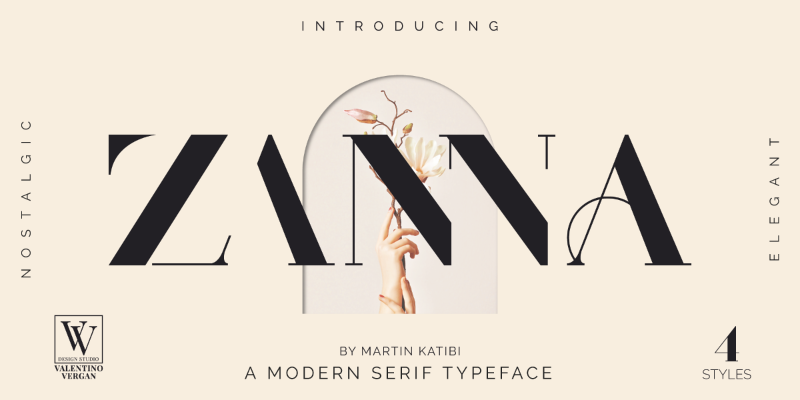
Zanna is a modern typeface with lots of style and elegance. The Zanna typeface was inspired by the high contrast Didot look, which has been synonymous with fashion for decades. The Zanna typeface also has a very thin hairline and short non-bracketed serifs, which gives it a nostalgic and modern look. The Zanna typeface comes in two styles Regular and Stencil, each style has an oblique version. The Zanna typeface has over 140 ligatures and alternate characters, this makes it perfect for creating modern and elegant feminine logos. With so many ligatures and alternates characters to choose from, you can definitely create stunning designs for your brand or clients. The Zanna typeface can be paired with a beautiful minimal sans serif or light script font, this combination will make your next project look elegant and classy. The Zanna typeface is very versatile and can cover a wide range of project such as: fashion branding, mastheads, magazines, feminine logos, facebook banners, wedding invitations, Instagram posts, websites, blog posts, pull quotes, editorials, product packaging, trendy social media posts, advertisements and much more. This font is free for PERSONAL USE. If you need more information you can contact me at: valentinovergan@gmail.com _____ FOR PERSONAL AND COMMERCIAL USE, please download here: https://crmrkt.com/KgvVb3 More... |